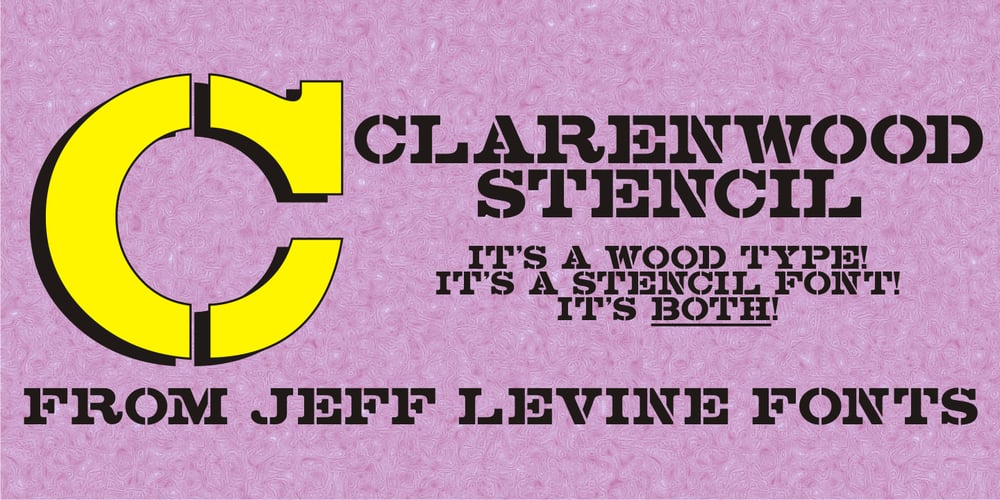
Clarenwood Stencil JNL Font Family was designed by Jeff Levine and published by Jeff Levine. Clarenwood Stencil JNL contains 1 styles and family package options. It’s a wood type! It’s a stencil font! It’s BOTH! Clarenwood Stencil JNL was originally designed as a solid alphabet (Clarenwood JNL) modeled from vintage wood type. The stencil treatment was applied to add a fresh look to a classic lettering design.